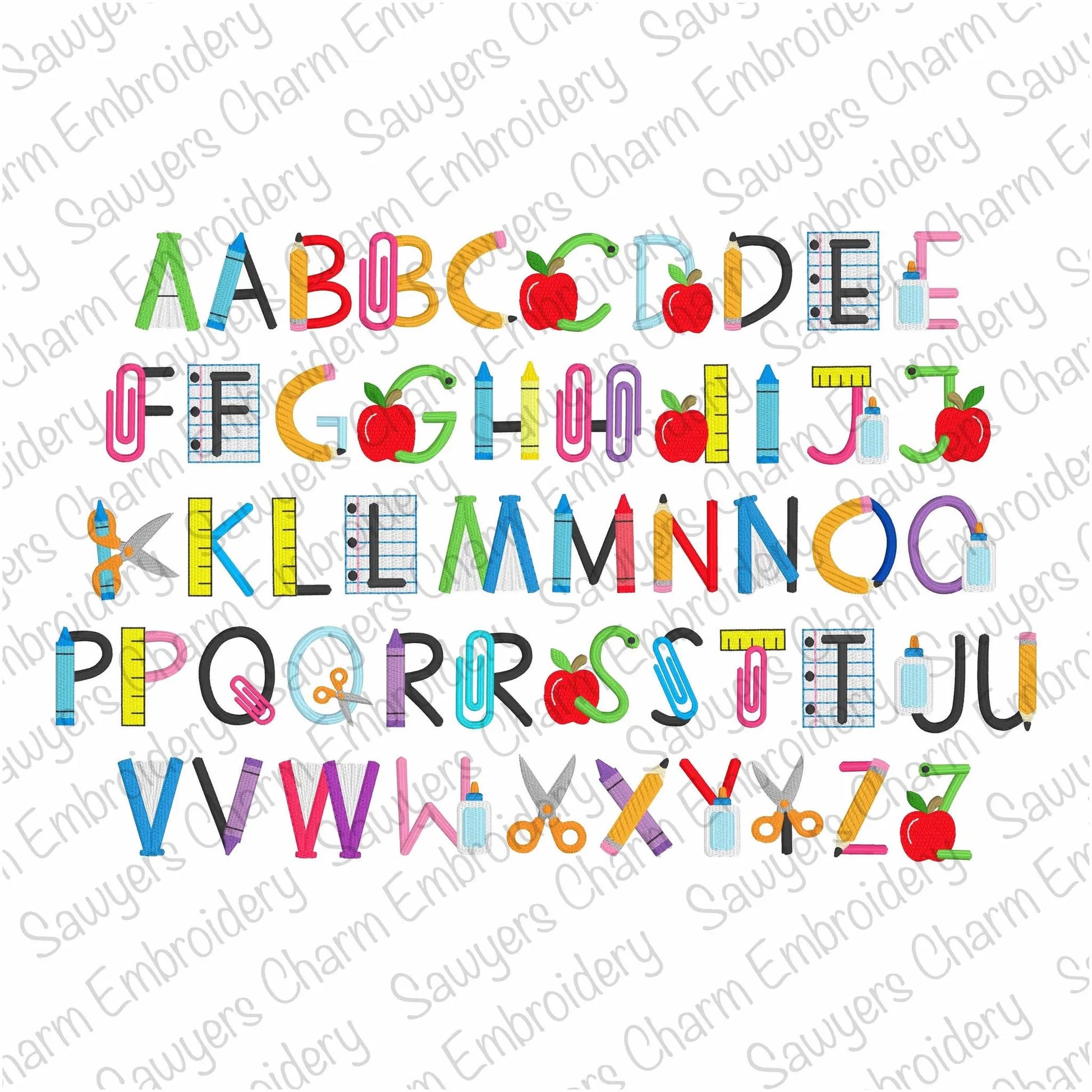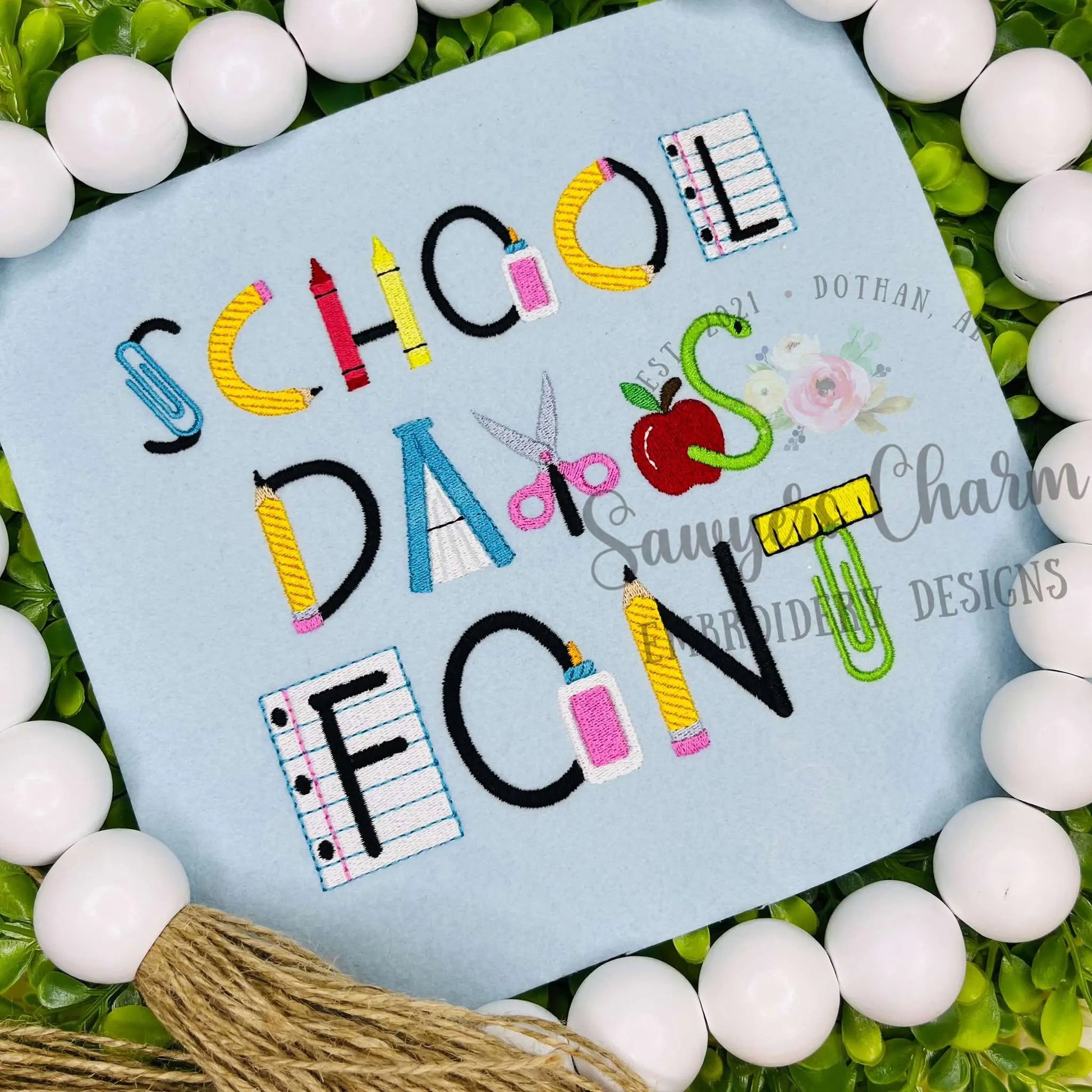
School Days machine embroidery font, satin & fill stitch letters, BX included, notebook paper, pencil, crayons, apple, worm, books, scissors
This embroidery font comes in several sizes....1.25", 1.5", 1.75", 2", 2.25", and 2.5". This is a satin and fill stitch font with capital letters. Each letter comes with two choices, each having a different design. Some letters are made from books, apple and worm, crayons, paper clips, pencils, notebook paper, ruler, and scissors. This will work for boys and girls since there are so many options and by changing the colors.
PLEASE NOTE: These letters cannot be used without the little figures that are attached to the letters (glue, scissors, etc). The portion of the letter behind the figure is missing so that the design is not so dense in that area. They can only be stitched with the figures. Please do not purchase if you are only wanting to use the letters without the figures. No refunds will be given if you do. Thank you for understanding!